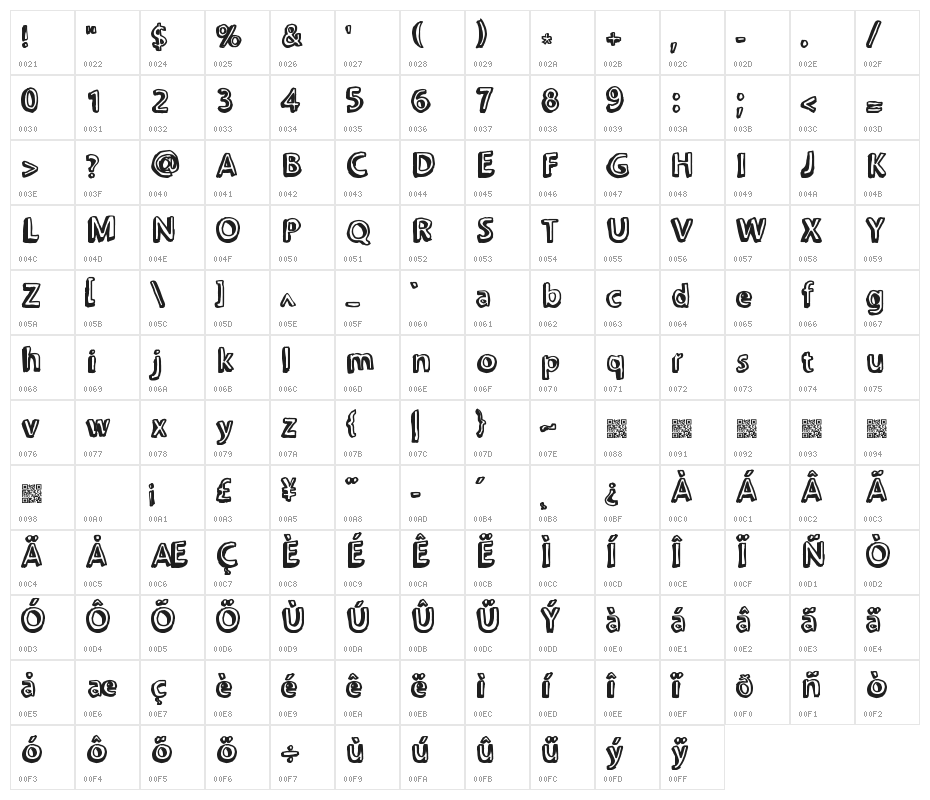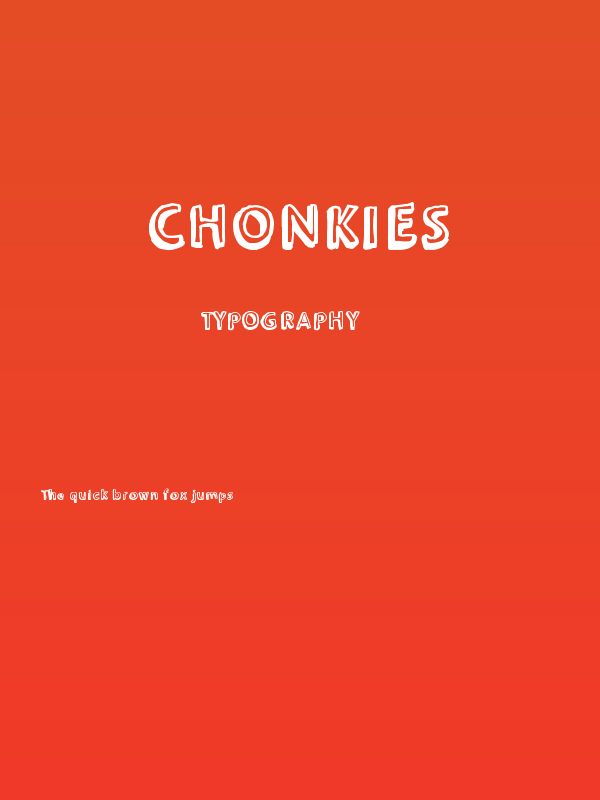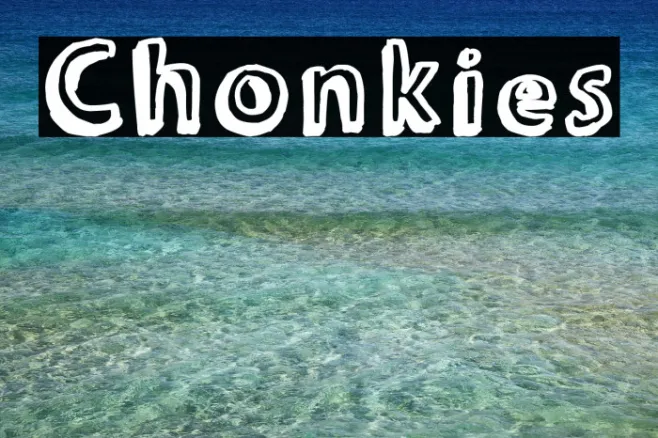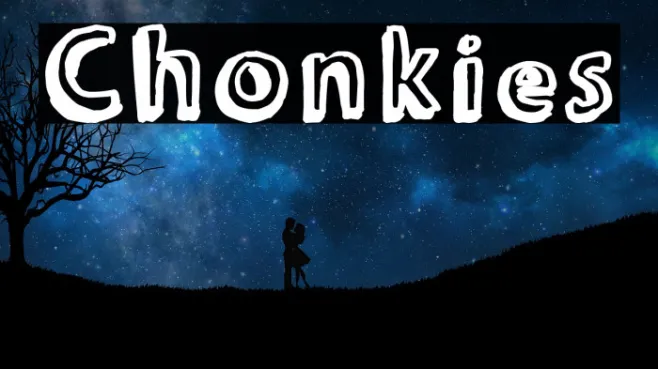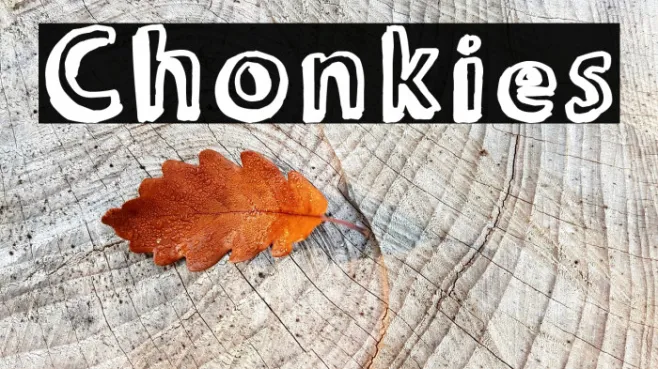
Chonkies Font
Chonkies Description
This font features a playful and bold style with a hand-drawn appearance. The characters are outlined with a thick, uneven stroke that gives them a cartoonish and informal look. Each letter has a slightly irregular shape, adding to the whimsical and casual feel. The font maintains a consistent weight throughout, with rounded edges that soften the overall appearance. It is highly legible and stands out due to its unique and eye-catching design, making it suitable for creative and fun projects.
| Overall Style | Playful, Cartoonish |
| Proposed Projects | Ideal for children's books, comic strips, playful branding, and creative posters. |